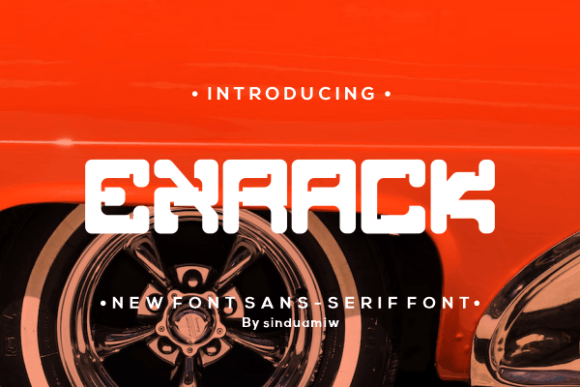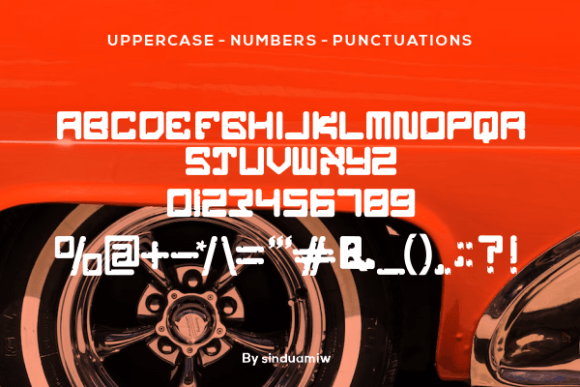
EXRACK FONT SPECIMEN
Exrack is a bold and unique slab serif font that will take your creations to the highest levels! Use this modern typeface to make your words stand out!